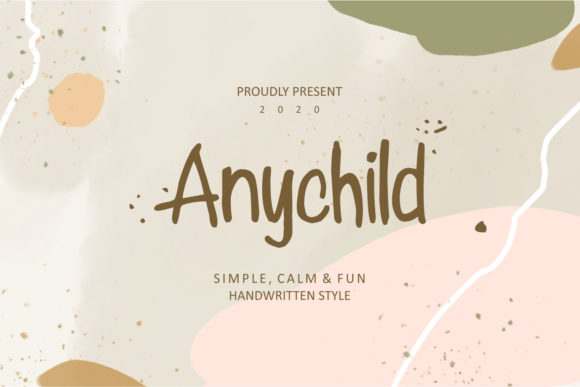
An Honest Review of Anychild Font
- ✨ Effortless elegance: Anychild Font exudes a sense of sophistication and refinement, making it perfect for high-end designs.
- ✅ Versatility: Its simple yet distinctive design makes it suitable for a wide range of applications, from logos and branding to posters and magazine covers.
- 💡 Instant recognition: The font’s unique character set and subtle flair make it instantly recognizable and memorable.
While Anychild Font is an excellent choice for many design projects, there are a few minor quirks to be aware of:
- 🤔 Limited multilingual support: While the font covers the basic Latin character set, it may not be suitable for designs requiring extensive multilingual support.
- ⚠️ Occasional kerning issues: As with any font, some users may experience kerning issues in certain design applications or platforms.
The Story Behind Anychild Font
Anychild Font was designed with the intention of creating a clean, elegant handwritten font suitable for a wide range of design applications. The designer’s goal was to craft a font that would be both timeless and versatile, allowing users to create stunning designs with ease. With its simple yet distinctive design, Anychild Font has quickly become a favorite among designers and creative hobbyists alike.
Q: What type of designs is Anychild Font best suited for?
A: Anychild Font is ideal for designs requiring a touch of elegance and sophistication, such as logos, branding, posters, magazine covers, and more.
Q: Does Anychild Font support multilingual text?
A: While Anychild Font covers the basic Latin character set, it may not be suitable for designs requiring extensive multilingual support.
Q: Is Anychild Font available in different weights or styles?
A: Currently, Anychild Font is available in a single weight, but its versatility and range of OpenType features make it suitable for a wide range of design applications.